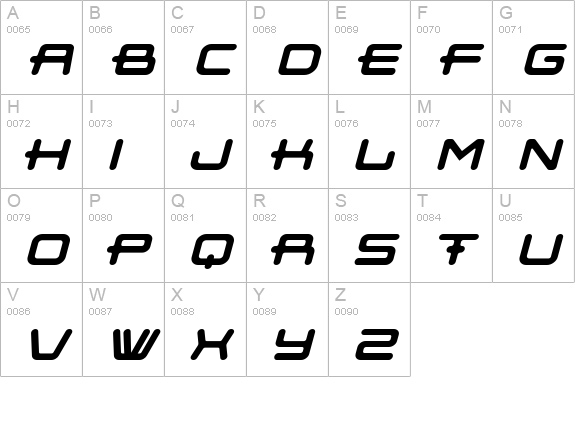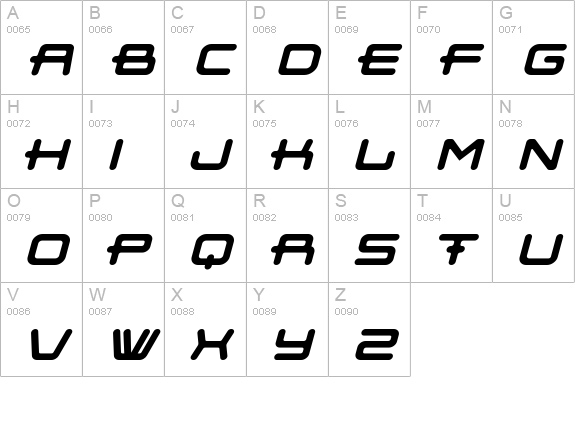
Cootnew BoldItalic Font Details
Cootnew BoldItalic font is a stunning display typeface that exudes elegance and sophistication. Its bold yet graceful italic design makes it perfect for adding a touch of luxury to any project. The fluid curves and sharp edges of this font create a sense of modernity and style. Whether used for branding, advertising, or editorial purposes, Cootnew BoldItalic font is sure to make a bold statement. And the best part? This exquisite font is available for free download at FontsMarket.com. So go ahead and elevate your designs with the timeless beauty of Cootnew BoldItalic font today!